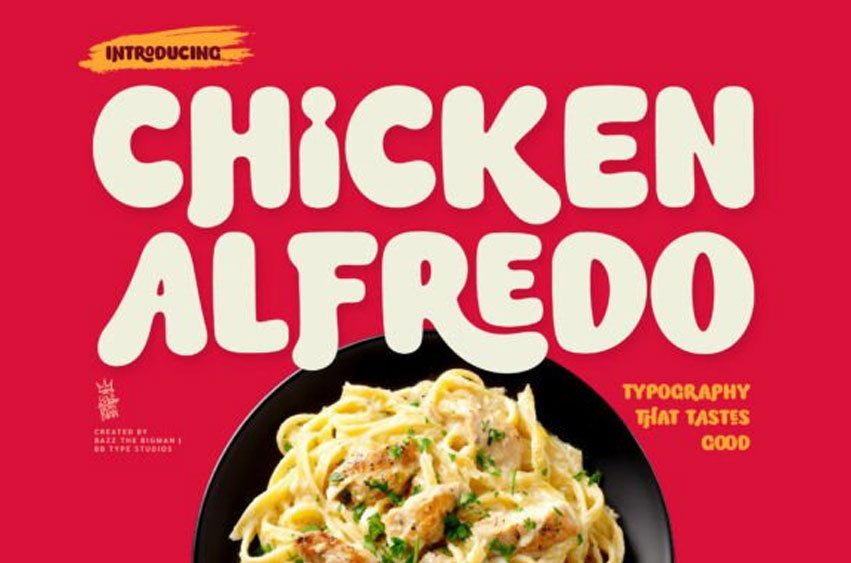
Chicken Alfredo Font Brace yourself for Chicken Alfredo – a playful font that combines stature with spunk. This lively display font dances on the line between bold and inviting, leveraging its hearty forms and affable personality to steal the show in any design setting.
Shrouded in the coziness of gentle rounded contours, Chicken Alfredo packs a visual punch, all while maintaining an air of light-heartedness. Whether you’re working on branding, packaging, headliner-text, logos, or injecting your social media with an attention-grabbing appeal, this font is your ace up the sleeve.
It’s a dazzling fusion of vintage charisma and contemporary joyfulness, wrapping both commercial and creative endeavors in a blanket of adaptability. Let Chicken Alfredo transform your typography into a captivating spectacle!